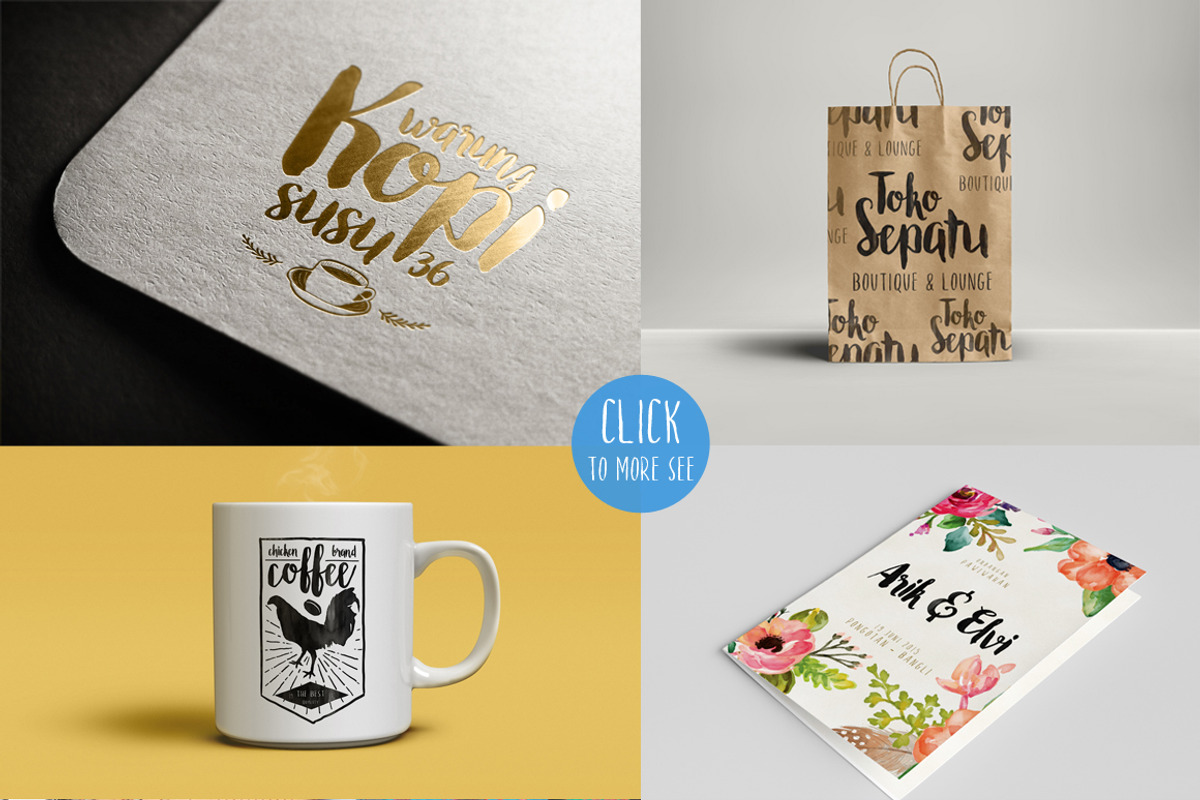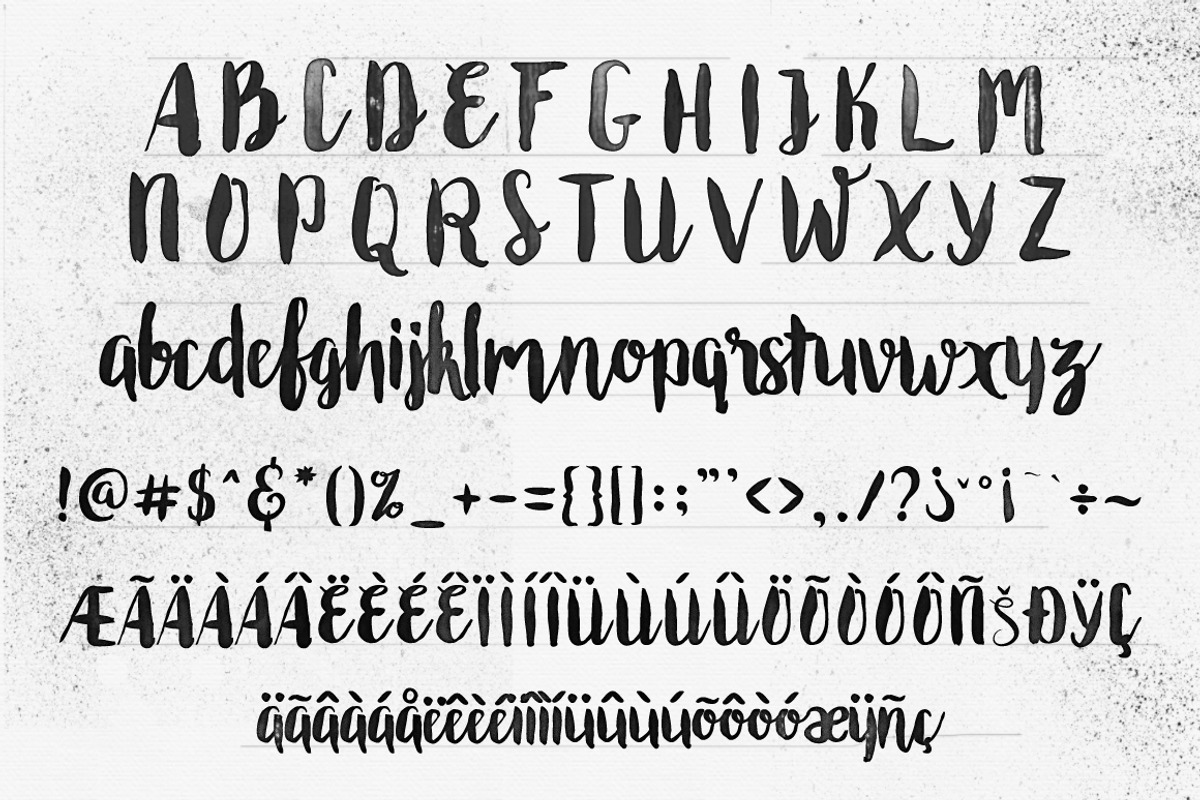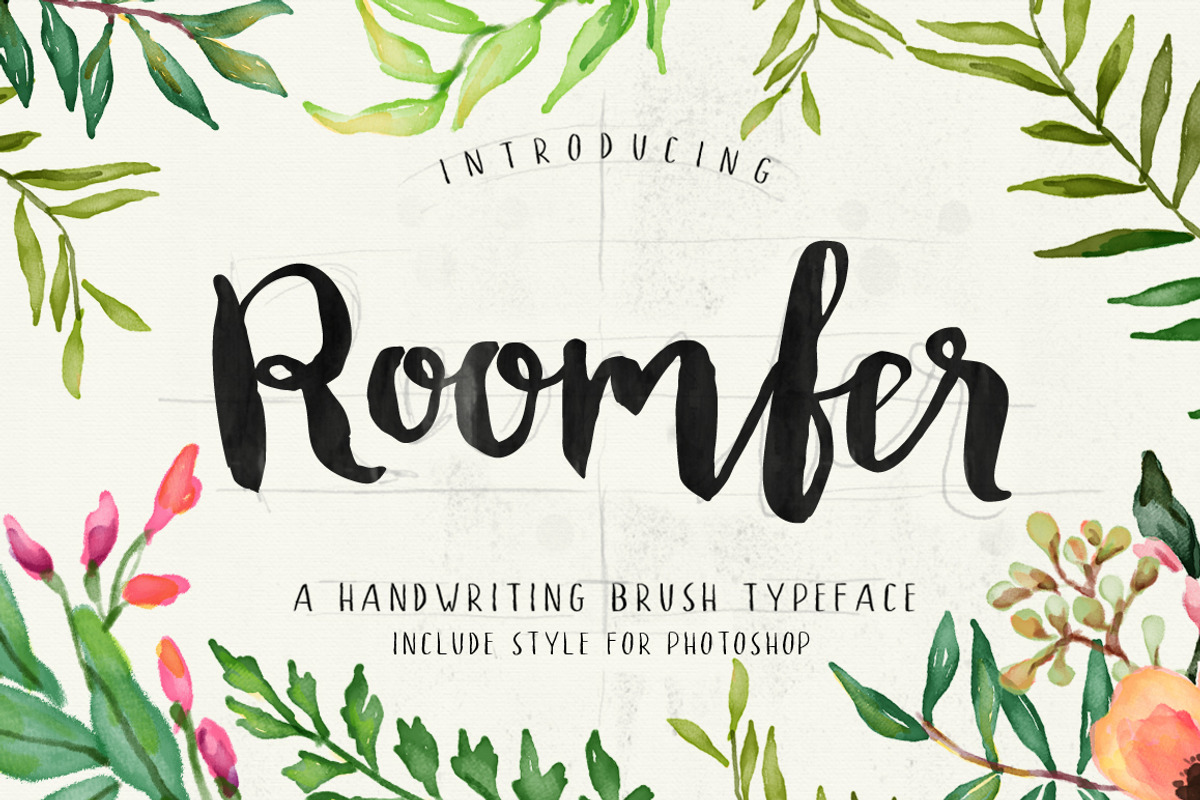
Roomfer font + Style Photoshop
Roomfer font + Style Photoshop by alit design is a font selected for branding, posters, packaging, typography.
- unique case characters, fun and different fonts, particularly suitable for designs that have a concept of relaxed and not so serious.
- These fonts are also supported by international characters.
- Roomfer Regular
- Roomfer San Serif Regular
Why Roomfer font + Style Photoshop is worth a look
Roomfer font + Style Photoshop by alit design fits naturally into Branding, posters, packaging, typography.